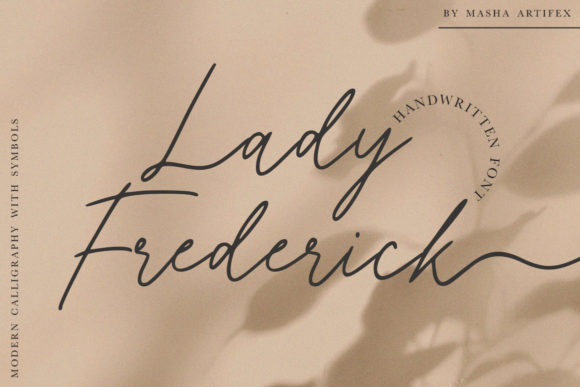
Prepare to be spellbound by Lady Frederick, a script font that exudes romance and sophistication. Its thin, flowing letters dance across the page like delicate whispers of love, carrying your words with an air of timeless elegance.
With Lady Frederick, transform ordinary designs into captivating works of art. This font is the perfect choice for creating wedding invitations that radiate elegance, stationary art that speaks of heartfelt sentiments, and social media posts that capture the essence of true love.
Unleash your creativity with Lady Frederick and watch as your words bloom into captivating stories, enchanting poems, and heartfelt messages. Its graceful strokes add a touch of magic to every design, leaving a lasting impression on the hearts of your readers.
Lady Frederick is more than just a font; it's an invitation to a world of beauty and romance. Embark on this enchanting journey and discover the endless possibilities that await you with this extraordinary font.
Don't settle for ordinary when you can have extraordinary. Choose Lady Frederick for all your love letter word projects and witness the magic unfold.